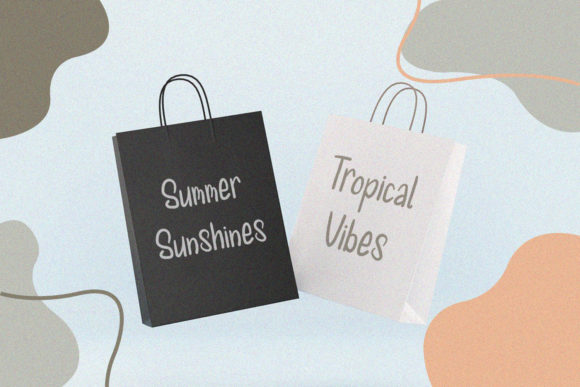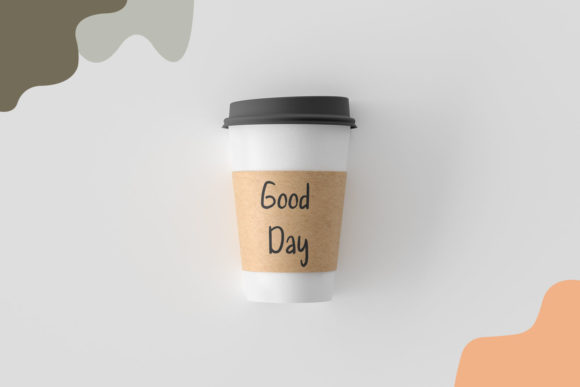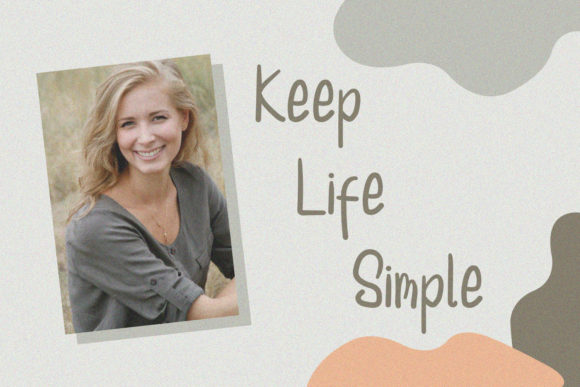
Introduction to Meghalloria Font
Meghalloria is a beautiful, well balanced and vintage styled script font.
Key Features of Meghalloria Font
Why Choose Meghalloria Font?